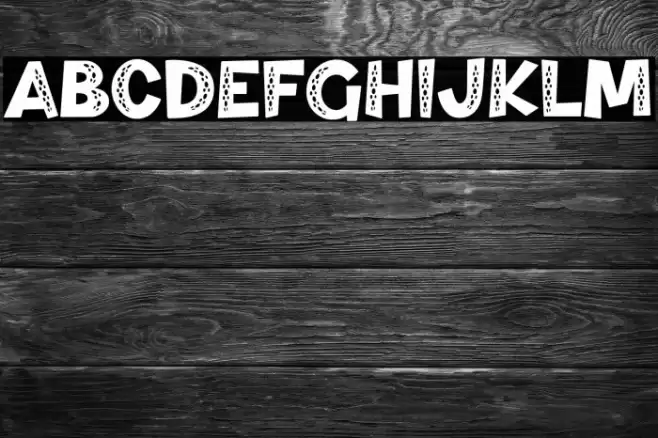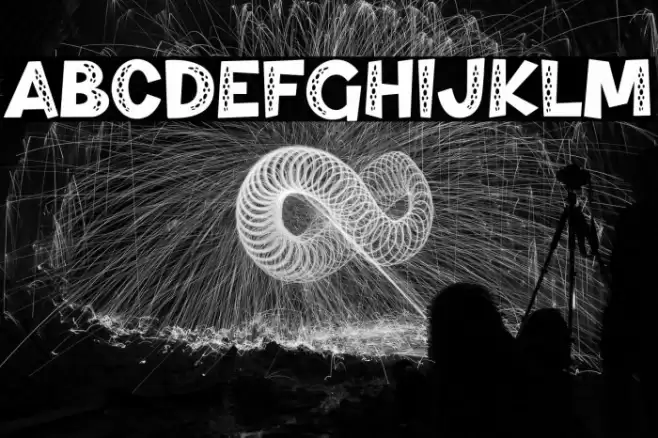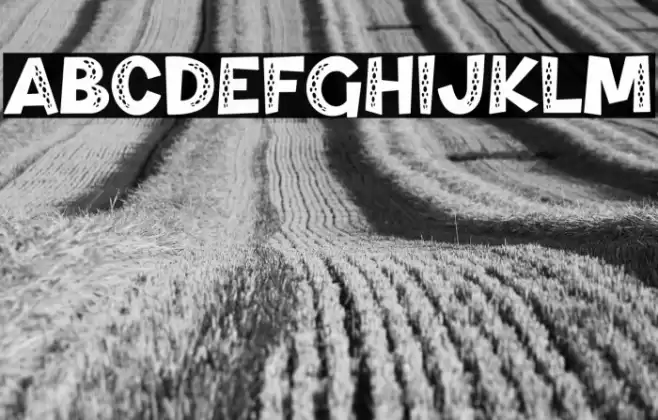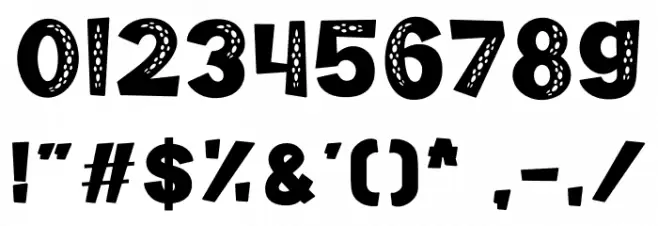
Dino And Friend Texture 2 Font
Dino And Friend Texture 2 Description
This playful and bold font features a unique texture within each character, adding a whimsical and fun element to its design. The letters are thick and rounded, with a decorative pattern that resembles a playful, childlike doodle. The uppercase and lowercase letters maintain a consistent style, with a slightly irregular shape that enhances its informal and friendly appearance. The numbers and special characters follow the same design principles, making the font versatile for various creative projects. Its bold presence and decorative elements make it ideal for eye-catching designs.
A playful, bold font with textured, decorative elements from Cartoon fonts.
- Font: Dino And Friend Texture 2
- Proposed Projects: Ideal for children's books, playful branding, party invitations, and creative posters.
- Overall Style: Playful, Whimsical